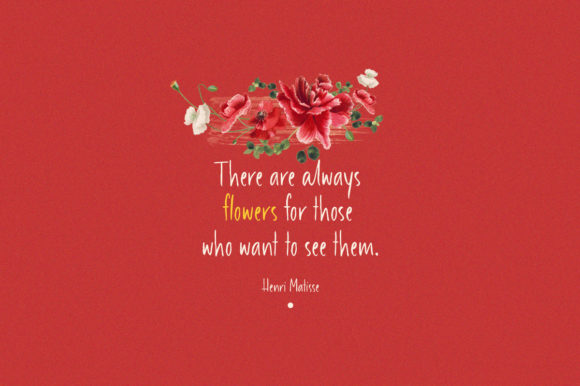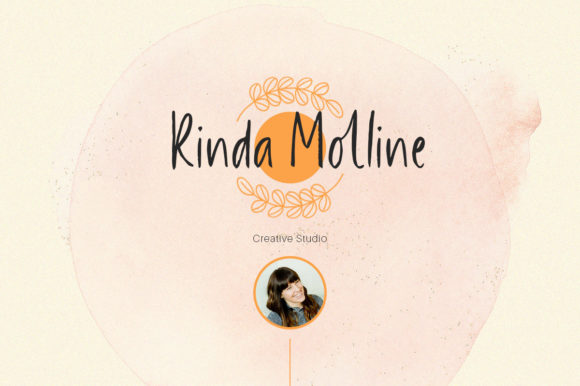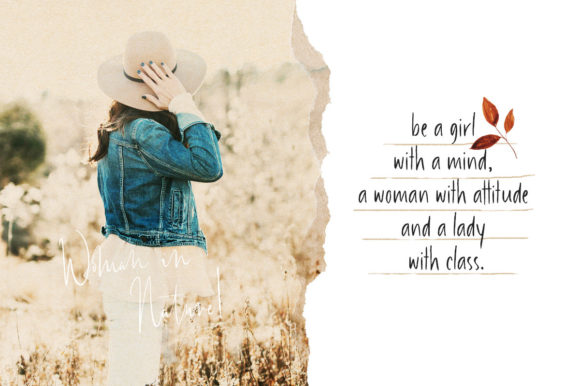
Introduction to Heart Garden Font
Heart Garden is a sweet script font featuring charming, playful characters that seem to dance along the baseline.
Add this font to your most creative ideas, and notice how it makes them stand out .
Why Choose Heart Garden Font?
Heart Garden Font offers exceptional quality and versatility, making it a valuable addition to your design toolkit. Whether you’re creating for personal projects or commercial use, Heart Garden Font delivers professional results.